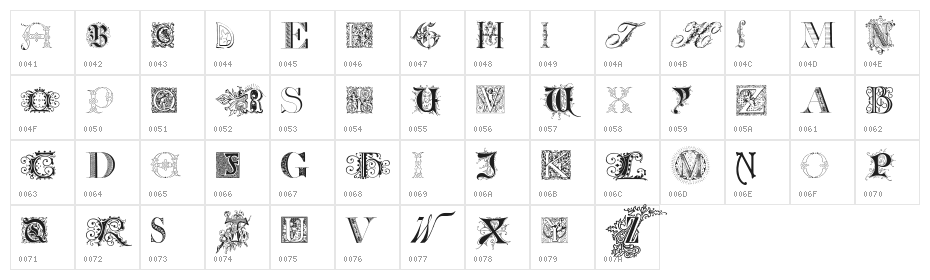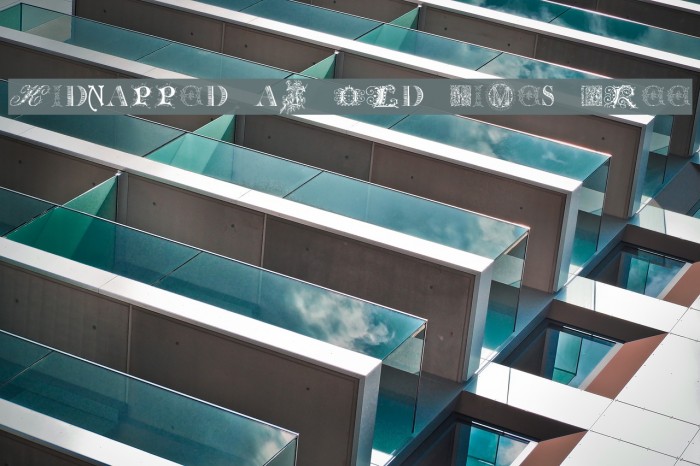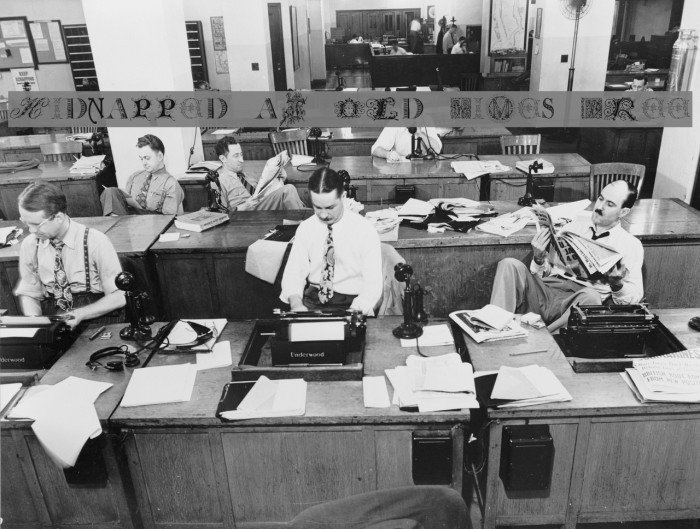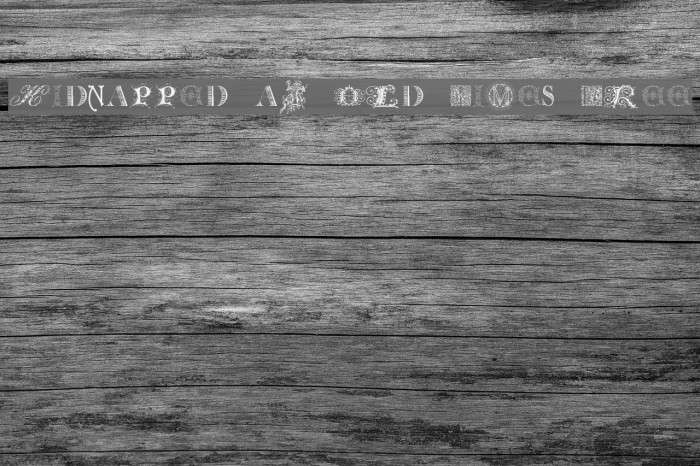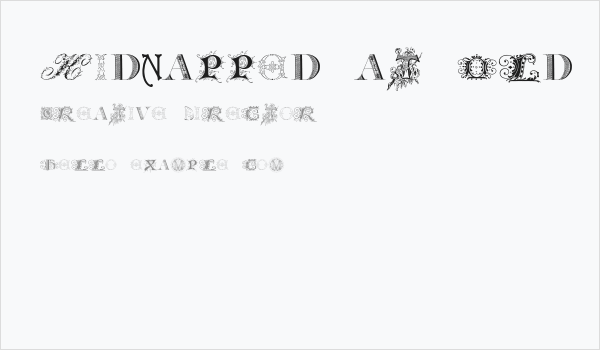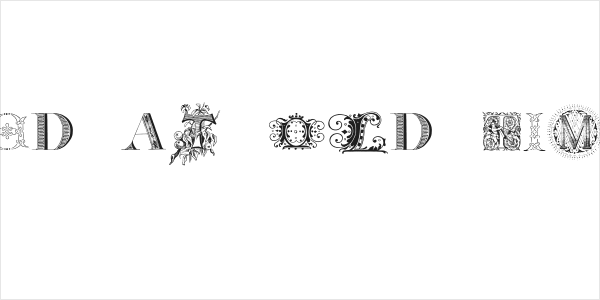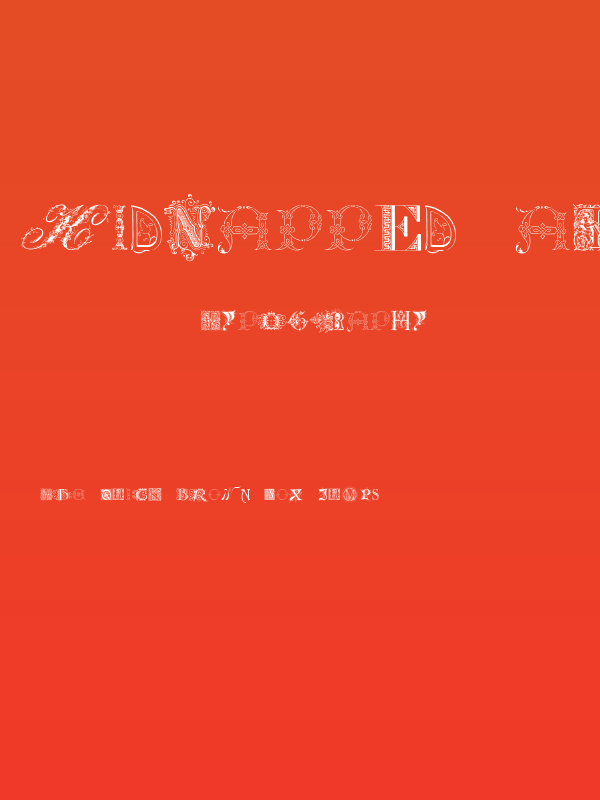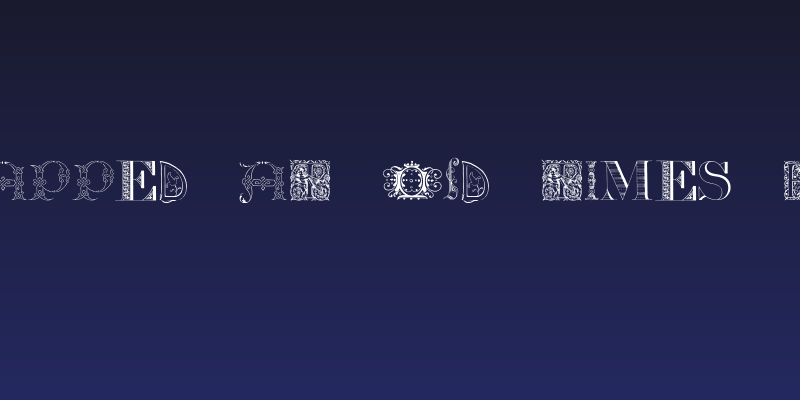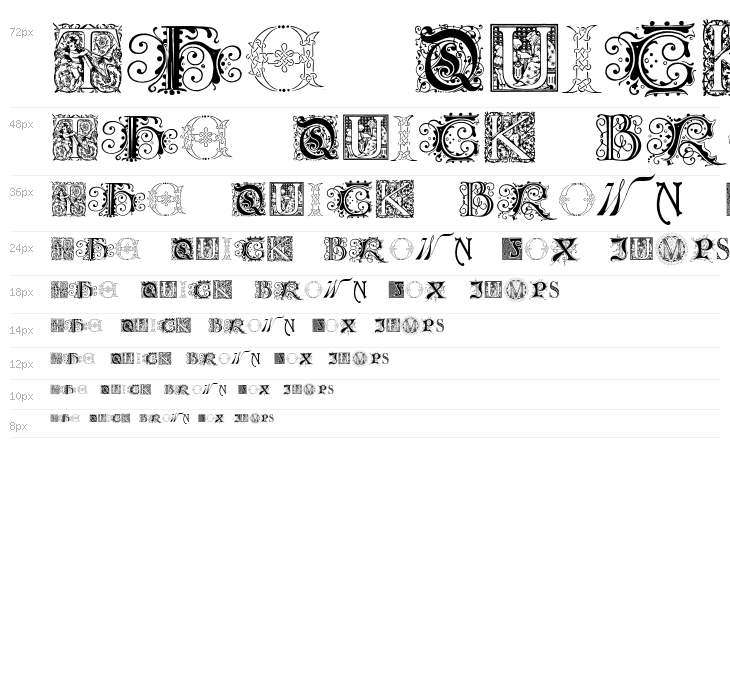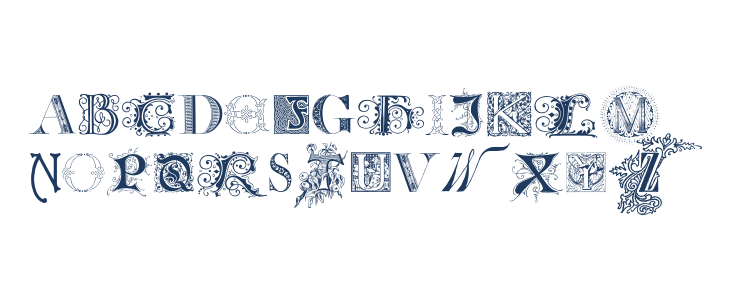
Kidnapped at Old Times Free Font
Kidnapped at Old Times Free Description
This font is a highly decorative and ornate typeface, characterized by intricate detailing and elaborate embellishments on each character. The uppercase letters feature a variety of flourishes and artistic elements, making each letter a unique piece of art. The lowercase letters maintain the same level of detail, ensuring consistency throughout the typeface. The numbers and special characters are equally ornate, with complex patterns and designs that add to the overall aesthetic. This font is ideal for projects that require a vintage or historical feel, as it evokes a sense of old-world charm and elegance.
| Use Case | Headlines, Decorative text |
| Proposed Projects | Ideal for wedding invitations, historical documents, vintage posters, and decorative headings. |